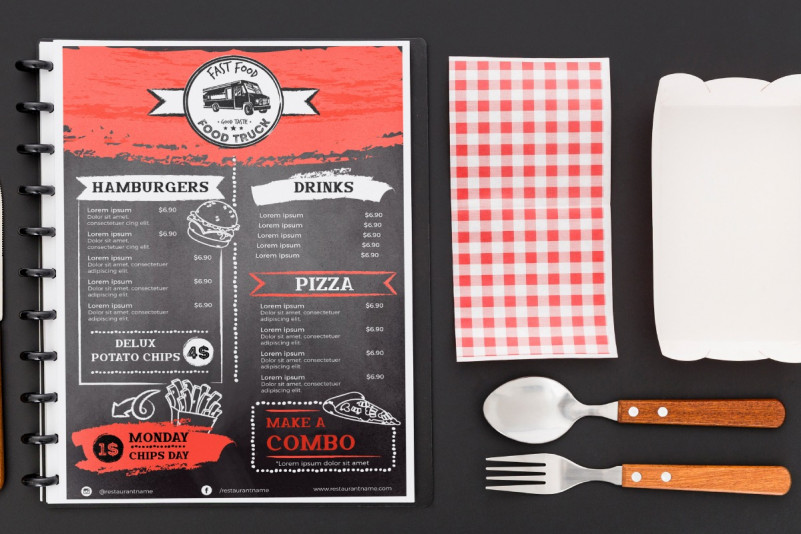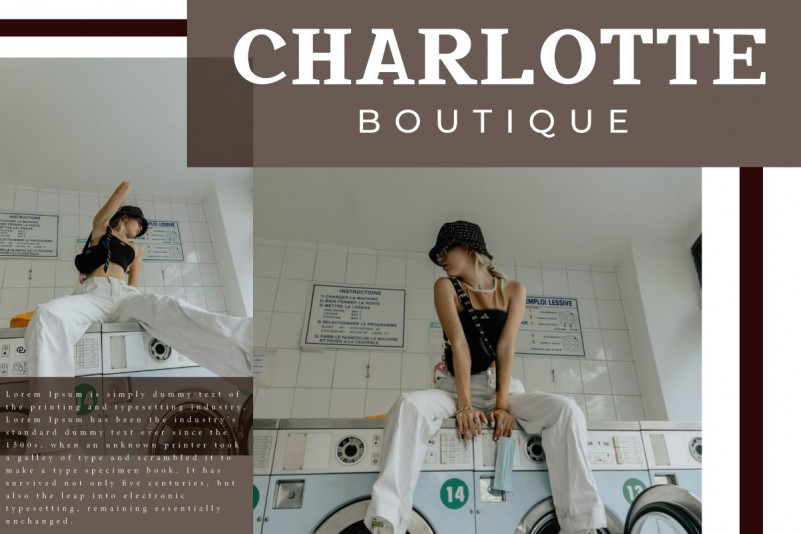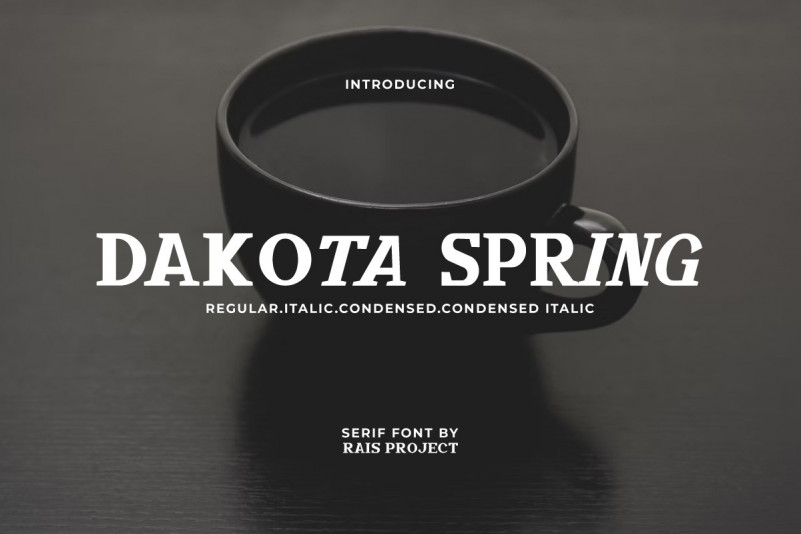
Dakota Font
Dakota Spring Serif Font is an exclusive serif font with various different styles: Regular, Italic, Condensed, and Condensed Italic that which will make your designs attractive! It will be perfect for many industries, such as bakery, boutique, café, fashion brand, handicrafts, homeware, interior design, publishing, real estate, restaurant, spa and salon, etc.
Dakota Spring Font includes a full set of cool Uppercase and Lowercase Letters, Numerals, and large range of Punctuation. This font will be suitable for those of you who need an exclusive modern touch on every design created. It can be customized on many designs, such as label, mockup design, poster, product packaging, quotes, screen printing, signage, stationery, website, and more!